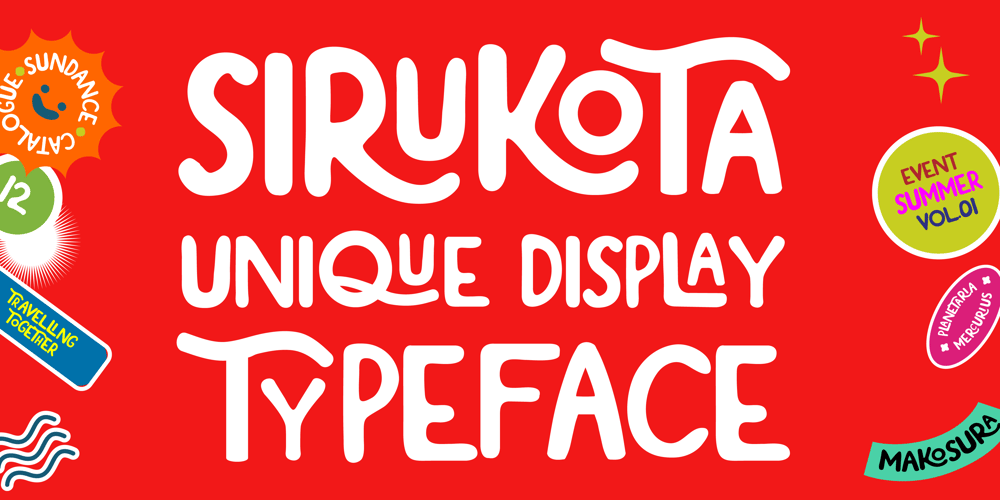
Sirukota
Sirukota font
Sirukota Font Family was designed by Khairil Anwar and published by Jetsmax Studio. Sirukota contains 1 styles and family package options. Sirukota is a unique display typeface with a lively theme. With a couple of special characters, this font will give your projects a heart and soul.Sirukota Font is suitable for variety of branding projects, logos, creative designs, social media posts, advertisements, and so much more. Show them how unique you are with Sirukota!